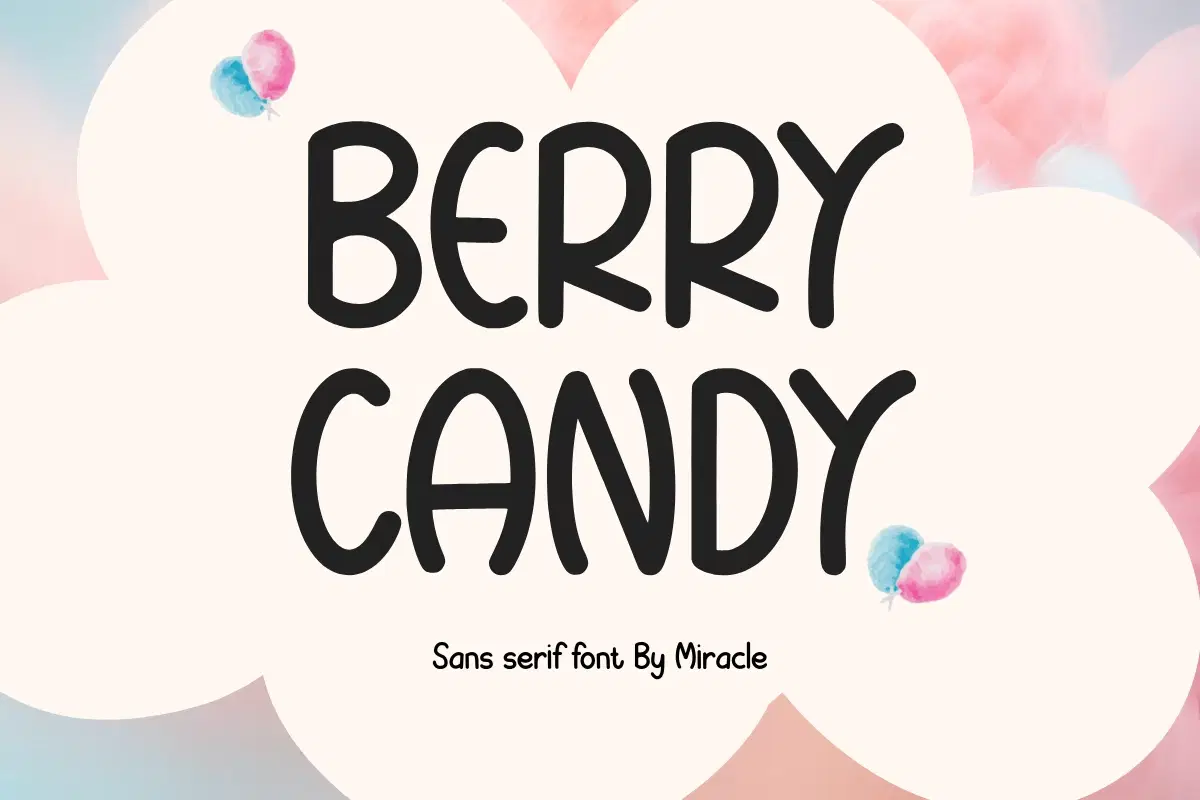
Sweeten your design game with Berry Candy, a charming sans serif font by Miracle. Featuring soft, rounded edges and a playful hand-drawn rhythm, this font is designed to bring a sense of joy and approachability to any creative work. It strikes the perfect balance between professional legibility and lighthearted fun.